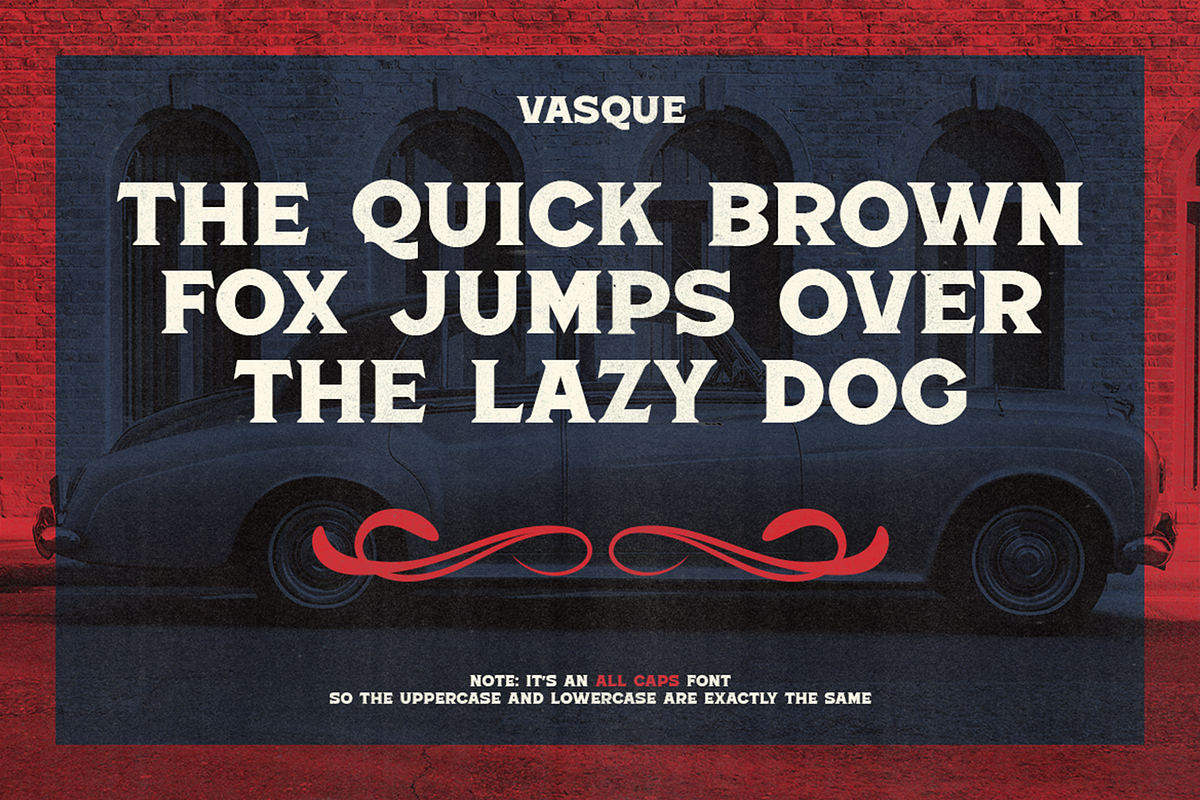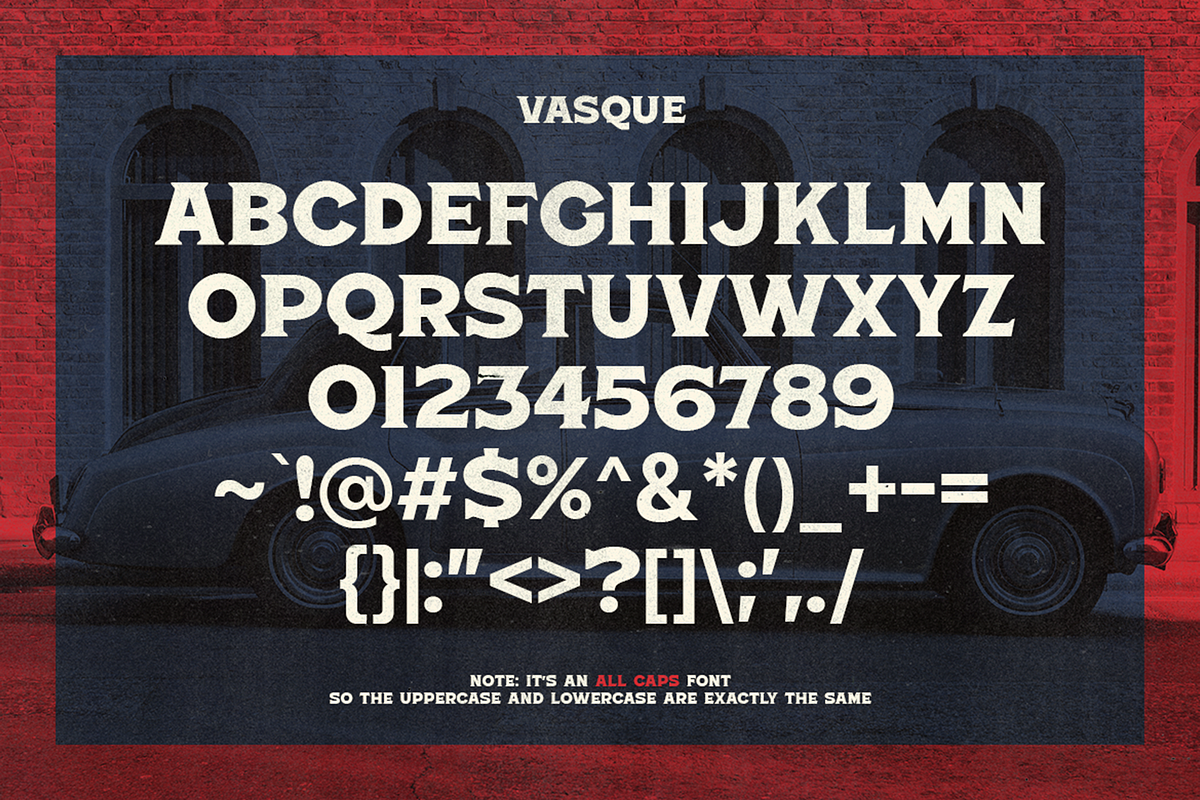
Vasque - Vintage Display Fonts
Vasque is a bold serif vintage font. It was inspired by the logo and badges from the classic era back in the 1950s.
Perfectly fit for a logo, branding, signage, decor, books, cover, badges and emblems, clothing, apparel, merchandise, movie title, serials, and many more.